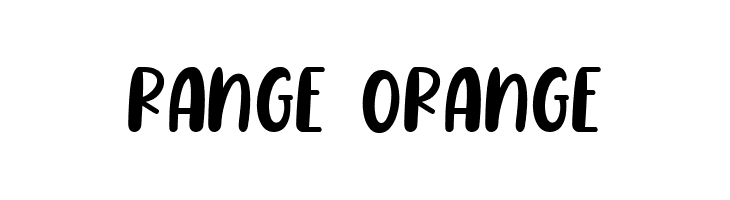
A sleek, modern, extra-condensed font with thin strokes and geometric shapes.
A graceful, handwritten script font with elegant curves and fluid connections.
A bold, expressive brush script font with dynamic, fluid strokes.
A bold, outlined, semi-italic font with a playful and modern style.
A bold, angular font with a dynamic, italicized style.
A bold, decorative font with a vintage, Western-inspired style.
A dynamic and fluid script font with elegant, flowing letterforms.
An elegant script font with flowing, cursive letterforms and medium contrast.
A bold, expressive script font with a dynamic, handwritten style.
A playful, hand-drawn font with bold, irregular strokes and a casual vibe.
A modern, geometric outline font with an italic slant.
A bold, futuristic font with sharp angles and geometric shapes.
A flowing, cursive script font with an elegant, handwritten signature style.
A lively, modern script font with elegant curves and dynamic strokes.
A dynamic and elegant script font with flowing, cursive letterforms.
A decorative font with comic-style character illustrations integrated into each letter and number.
A futuristic, bold font with a halftone effect and digital aesthetic.
A bold, handwritten font with dynamic slant and varied stroke thickness.
A playful handwritten font with smooth curves and a casual style.
A bold, angular font with a dynamic and geometric style.
A flowing, cursive font with elegant loops and swashes.
A playful, bold font with rounded edges and a bubbly appearance.
A sleek, minimalist font with geometric lines and a modern aesthetic.
A bold, high-contrast Blackletter font with intricate, ornate details.
A playful, handwritten font with a whimsical and dynamic style.
A playful, rounded font with a hand-drawn, casual style.
A casual, dynamic handwritten font with fluid, slightly slanted strokes.
An elegant, flowing script font with a sophisticated, handwritten style.
An elegant script font with flowing, ornate cursive letters and high contrast strokes.
A bold, flowing script font with dynamic slanted characters.
A fluid, elegant handwritten font with smooth curves and consistent stroke width.
A playful, handwritten font with fluid, connected strokes and a whimsical charm.
A bold, playful font with whimsical serifs and a vintage feel.